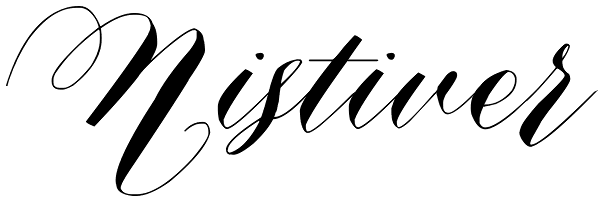
Nistiver
Nistiver font is playful, is feminine, packed with fancy swashy letters and swashes that can be put on the both ends of words - and above all swashes that comes in many shapes and forms. If that is not enough there are also available swashes to be...
Nistiver Black
Nistiver